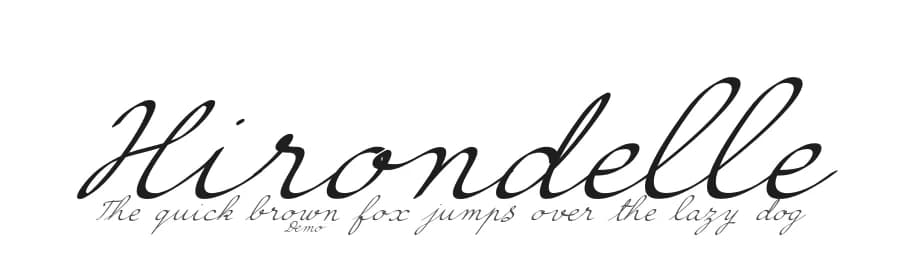
About Hirondelle Font
Hirondelle ships with 4 OpenType features you can switch on in apps that support them (Illustrator, InDesign, Affinity, Figma, CSS font-feature-settings).
Hirondelle supports 250 languages.
Hirondelle Font is a script font that shines as a display or heading face. Pair it with a clean sans-serif or serif font for body text β the contrast creates a clear hierarchy while the two styles stay balanced and easy to read.
Hirondelle Font
by JBFoundry